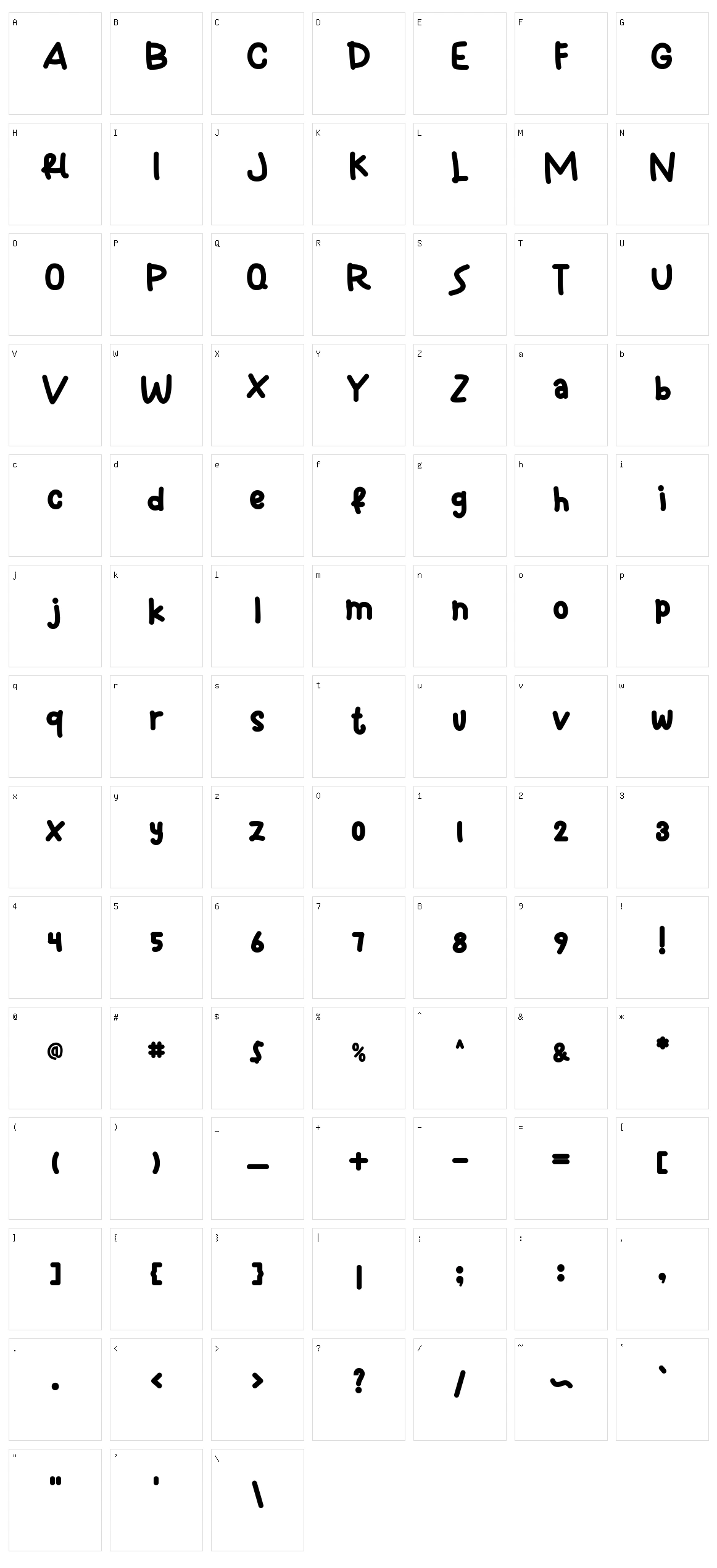
The free font The Great Summer Handwritten is carefully designed by Wellscript Studio, showcasing a thoughtful balance of creativity and usability and falls under the Script font style. When you download the ZIP file, it contains only 23.93 KB of font files, making it lightweight and quick to download. Please review the license details below to understand permitted usage and distribution rights. If license information is not available, we recommend using this font for personal projects only or contacting the author directly for commercial usage permissions.